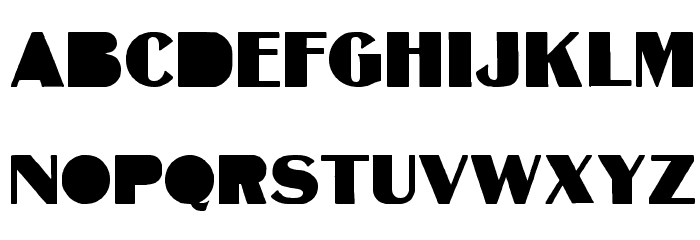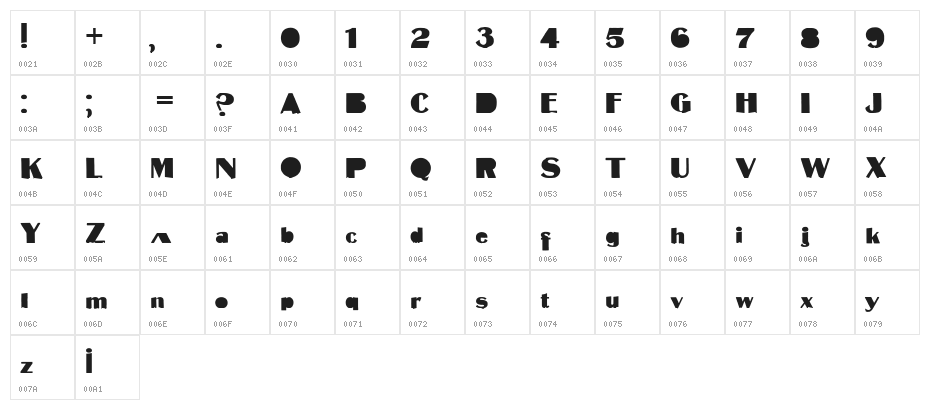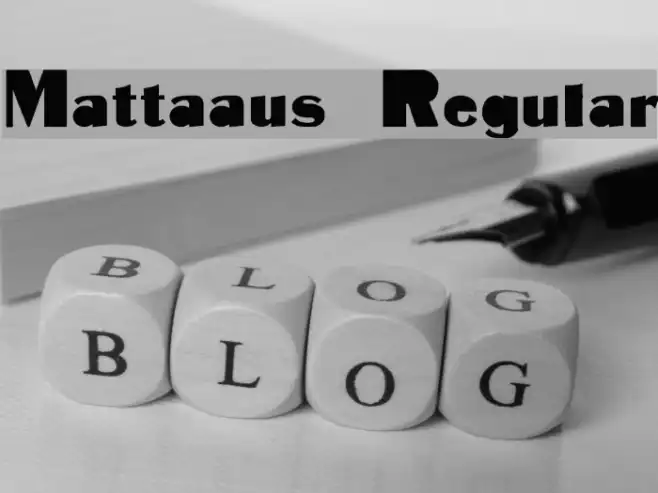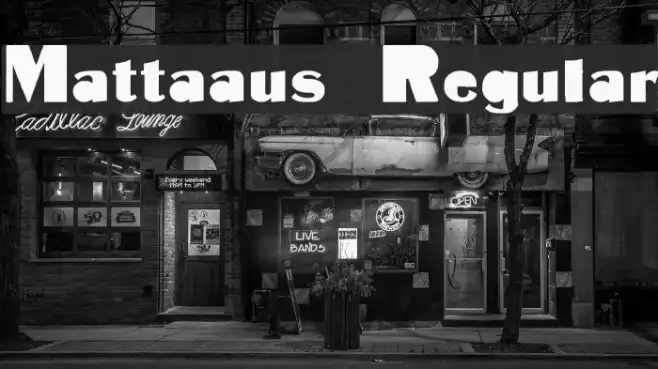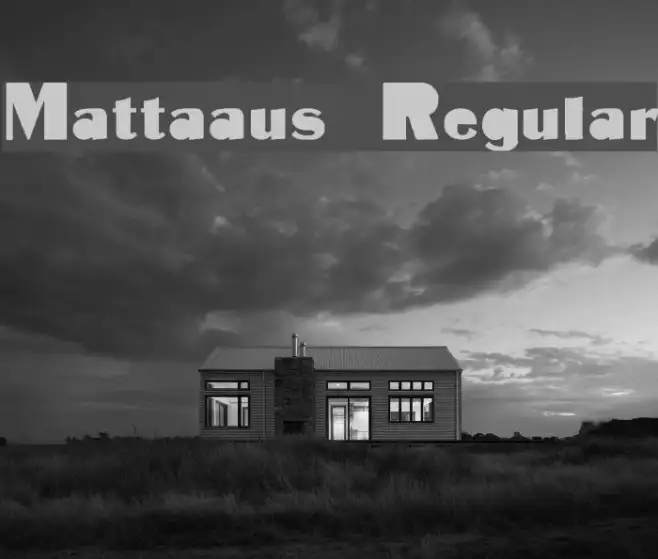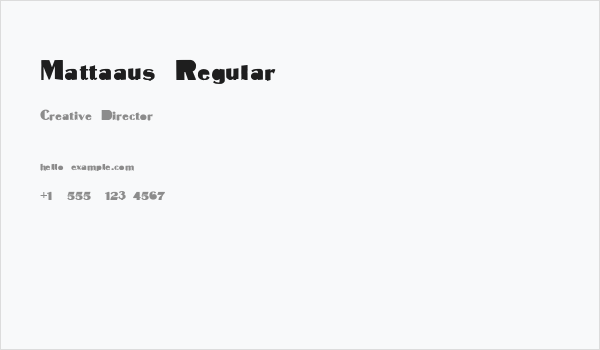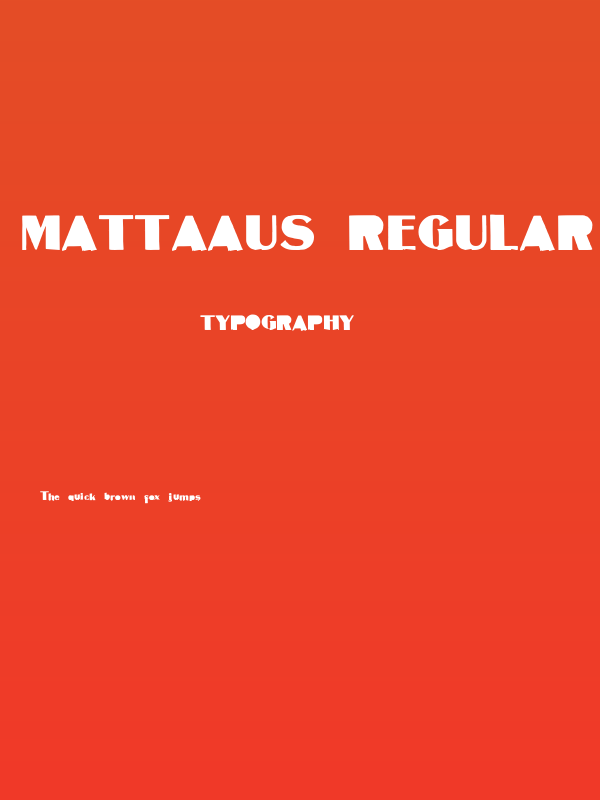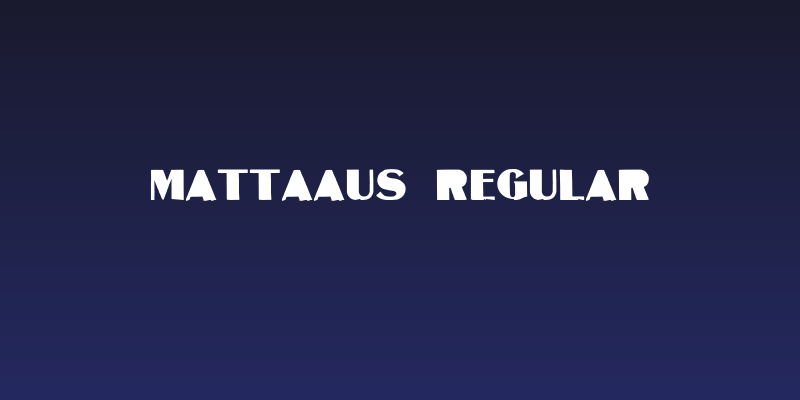
Mattaaus Regular Font
This font features a bold and striking design with a unique blend of geometric and organic shapes. The uppercase letters are characterized by their thick, solid strokes and angular forms, giving them a strong presence. The lowercase letters maintain a similar weight, with some characters exhibiting playful curves and distinctive cuts. The numerals are bold and consistent with the overall style, ensuring readability and impact. Special characters are designed with the same attention to detail, making them stand out. The font's overall appearance is modern and eye-catching, suitable for making a statement.
A bold, modern font with geometric and organic elements, perfect for impactful designs.
- Proposed Projects: Ideal for branding, posters, headlines, and any design project that requires a bold, modern aesthetic.